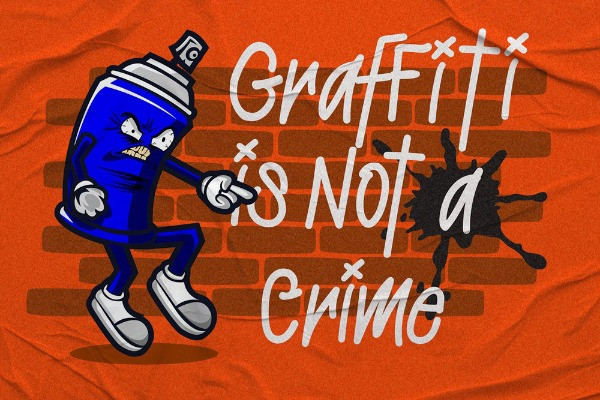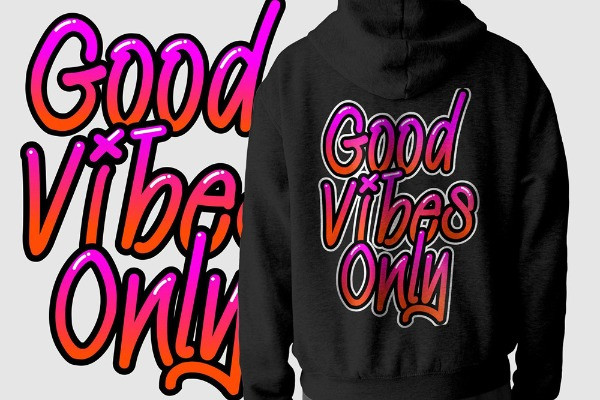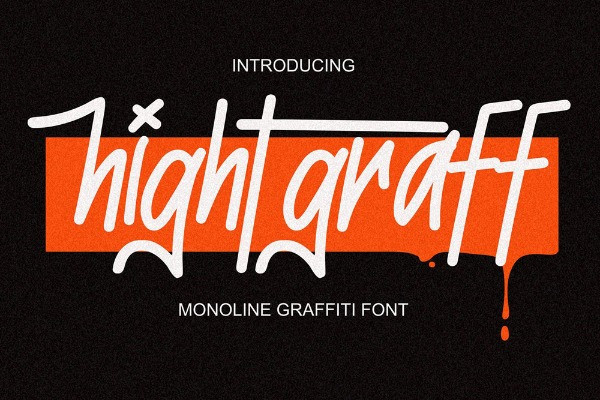
Hightgraff – Monoline Handwritten Font
Hightgraff – Monoline Handwritten Font is a clean yet expressive graffiti font that blends monoline precision with the natural flow of handwritten street lettering. Designed for modern creators, this monoline graffiti font delivers a smooth and stylish urban aesthetic while maintaining strong readability. Whether you’re creating branding, social media visuals, or streetwear graphics, Hightgraff graffiti font offers a refined take on authentic street typography.
This handwritten graffiti font captures the essence of tagging culture in a more controlled and polished form. With consistent stroke weight and fluid motion, Hightgraff stands out as a versatile urban graffiti font that fits both minimal and expressive design styles.